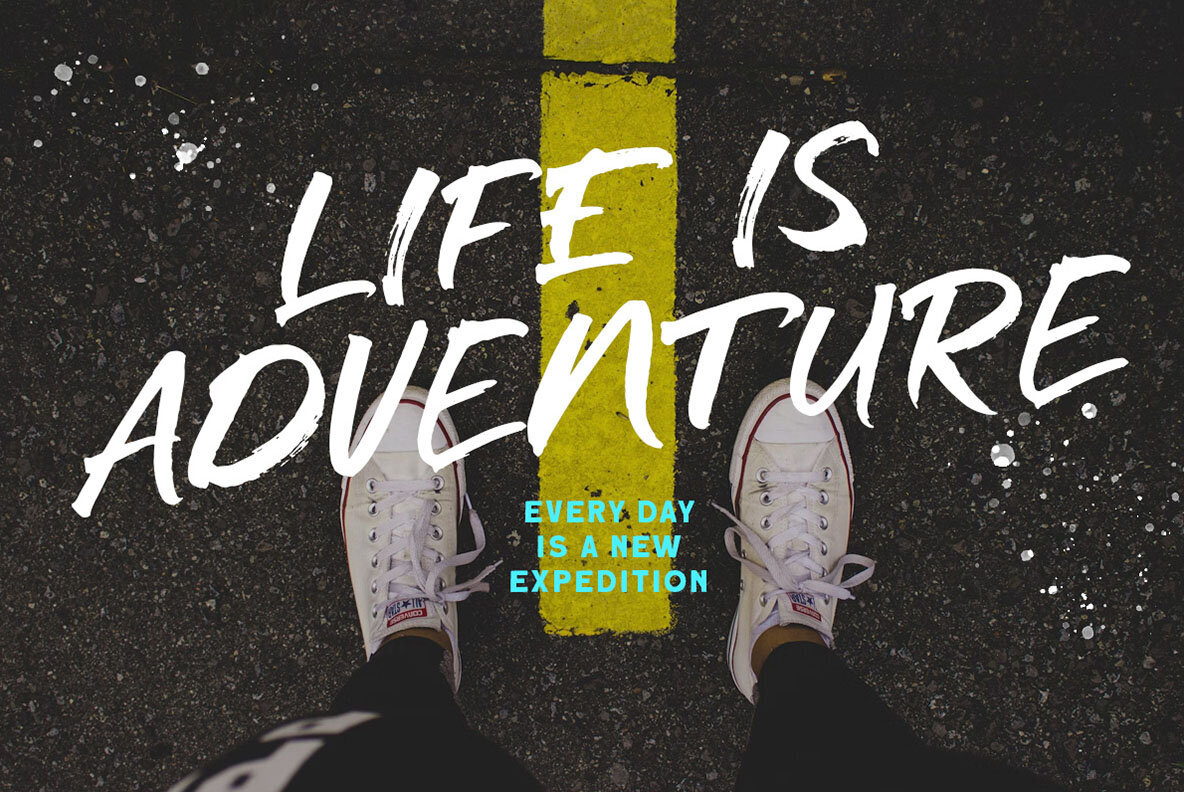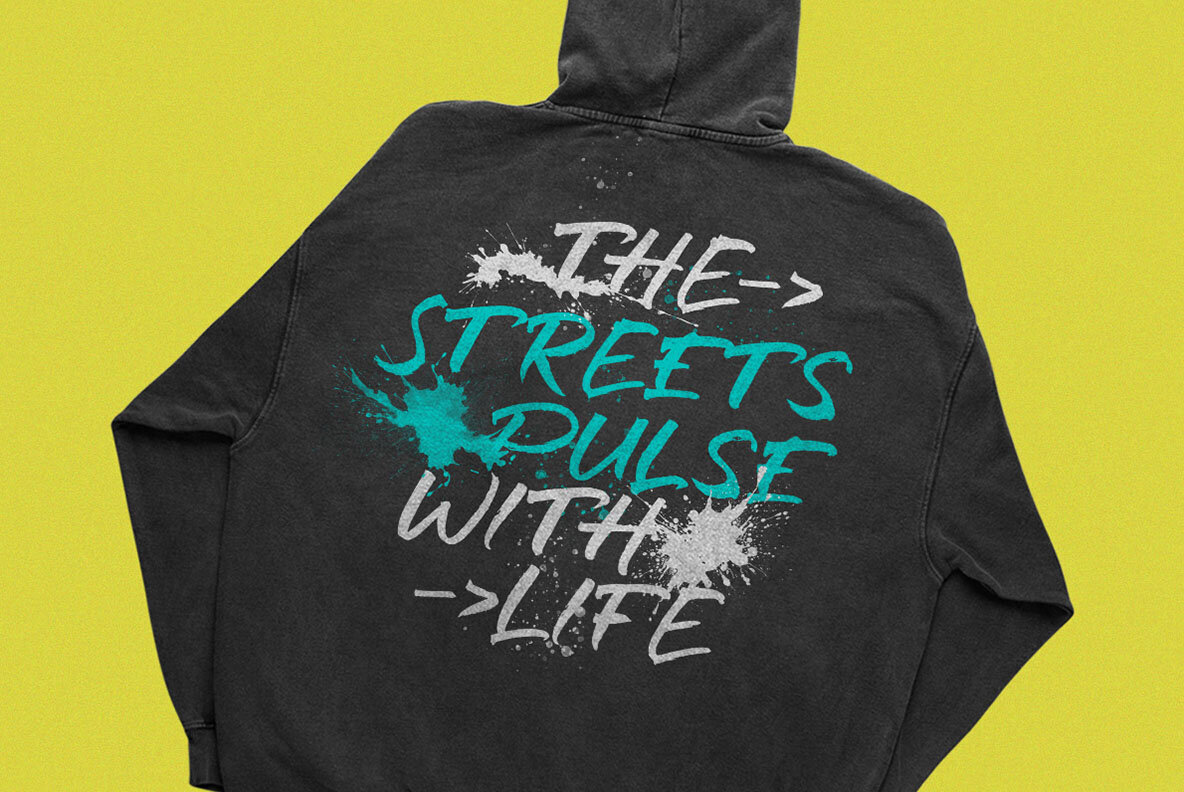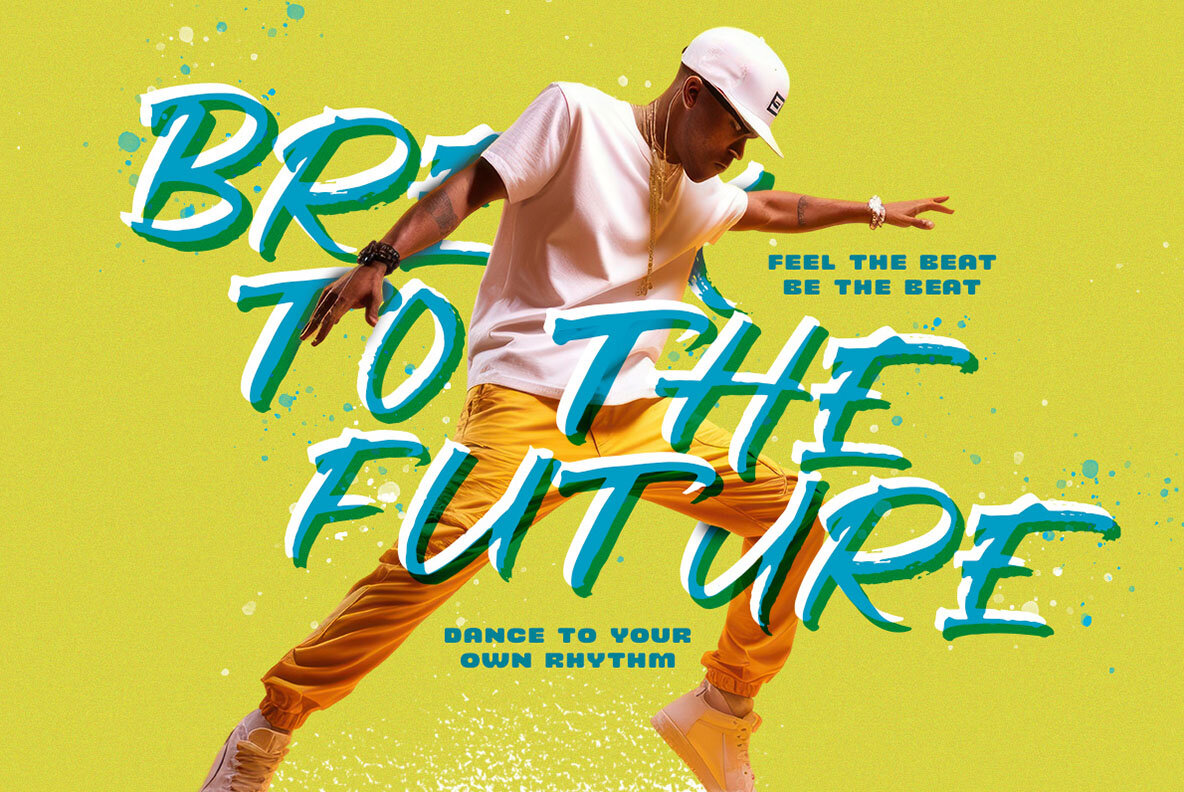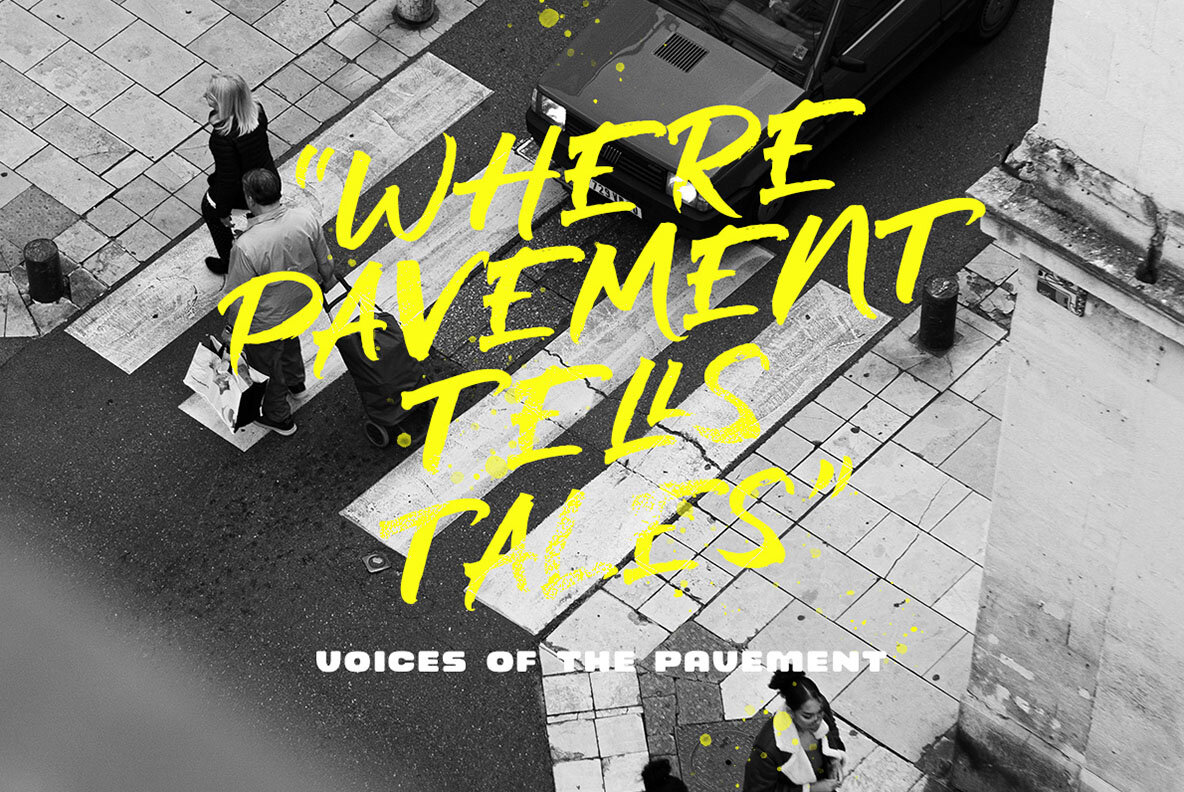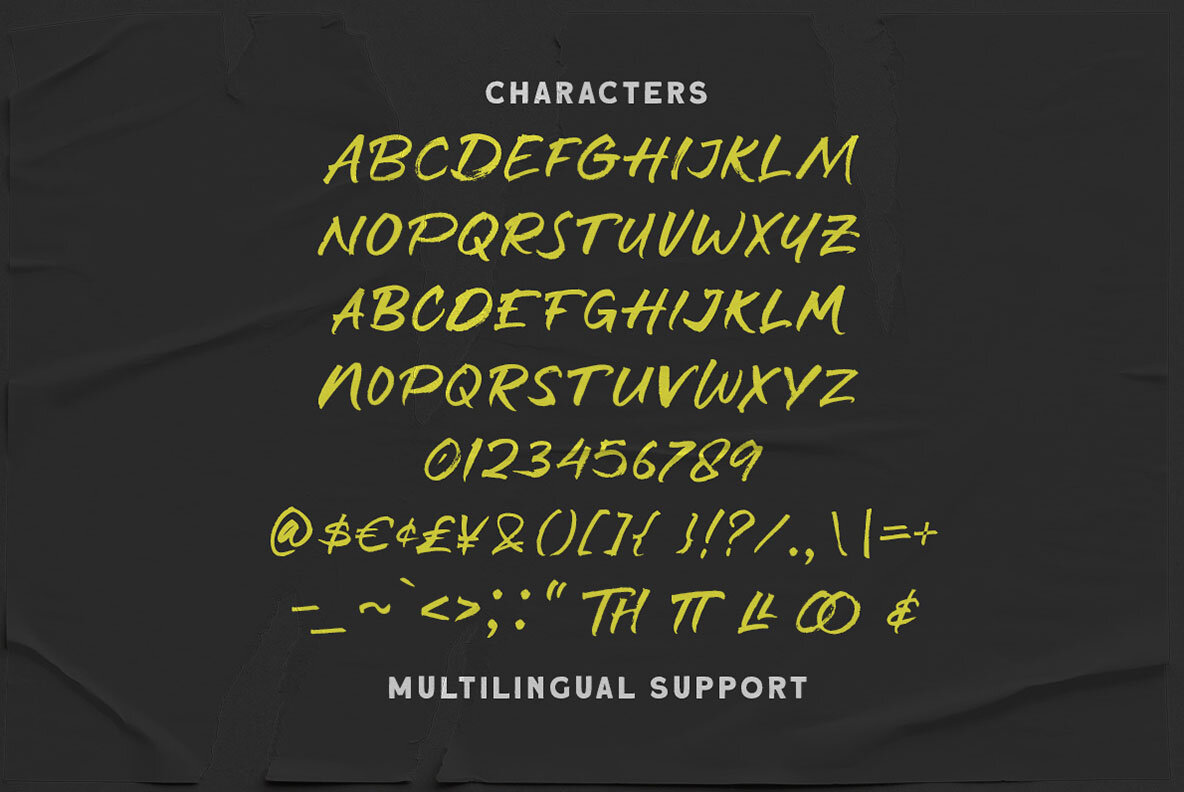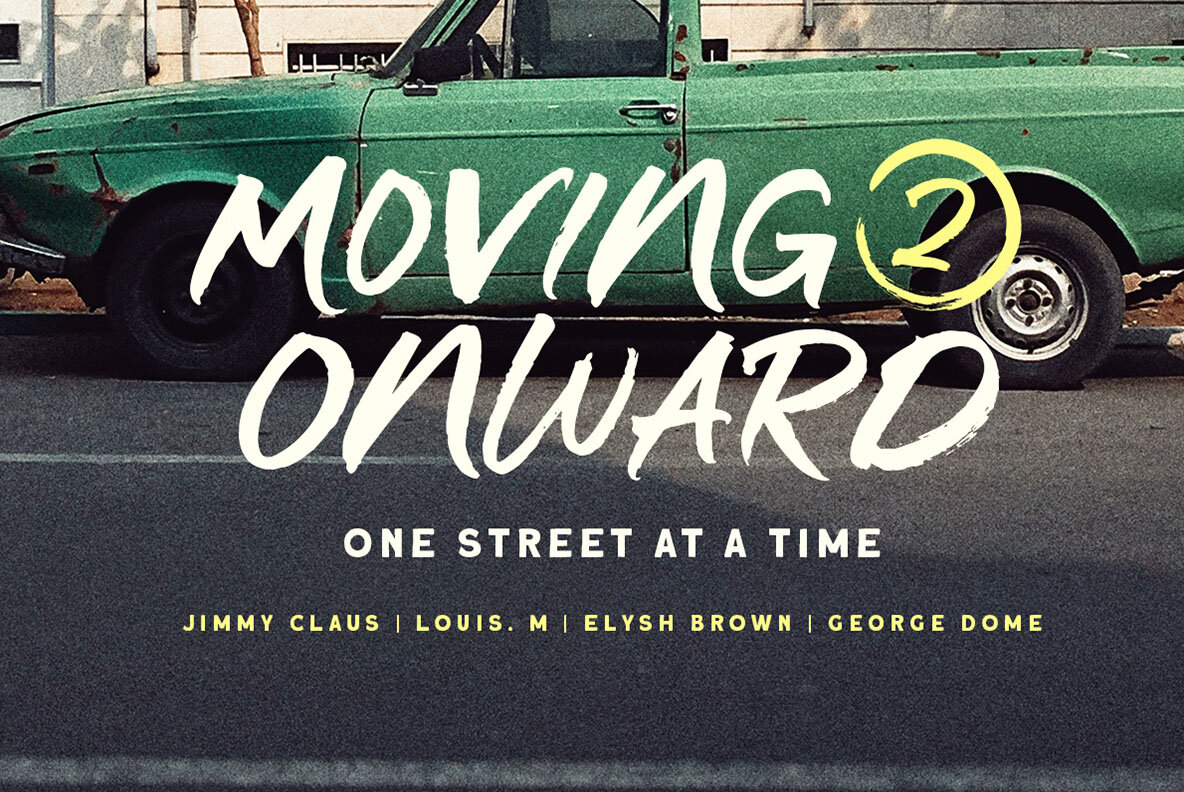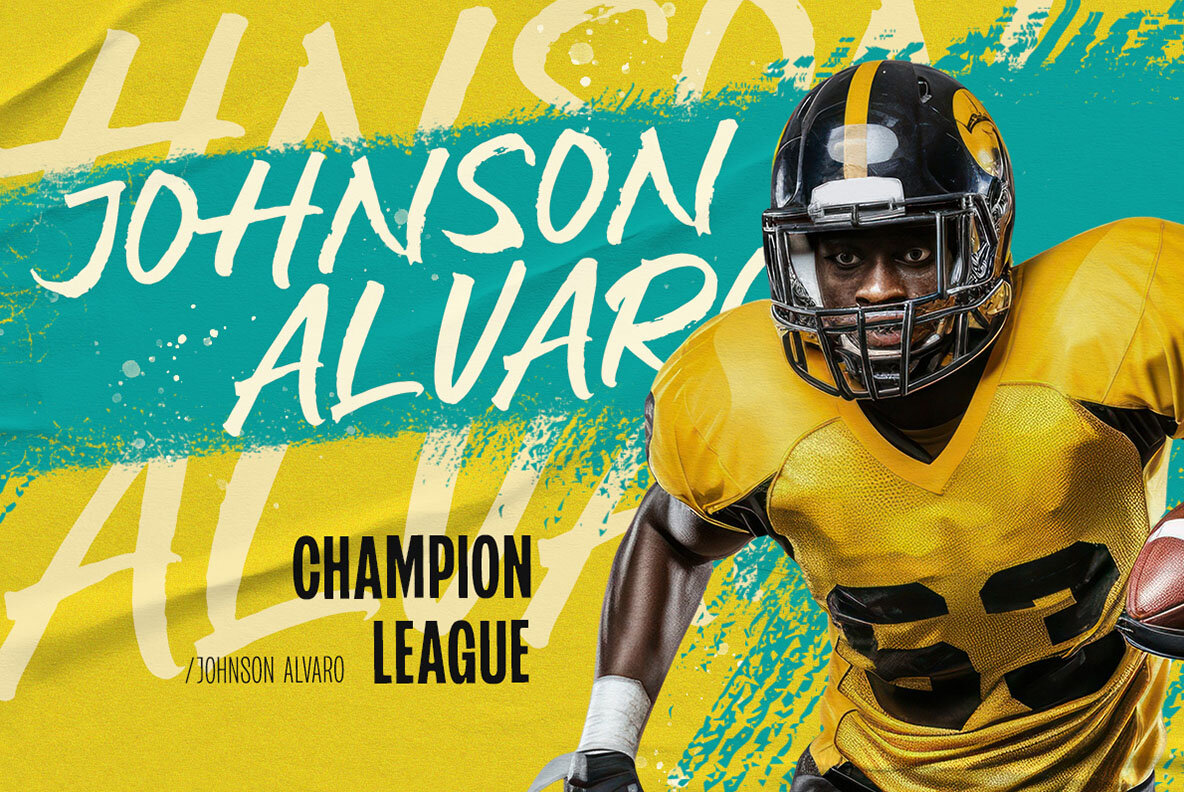
Mindful Braze Font
Mindful Blaze Regular
Mindful Braze is a freestyle brush font that brings an organic, hand-drawn quality to your designs. Its authentic strokes make it an ideal choice for projects that aim to make a bold artistic statement. This font is especially suited for application in logos and various formal forms, such as invitations, labels, magazines, books, greeting or wedding cards, packaging, fashion, makeup, stationery, novels, and advertising purposes. We recommend using a program that supports OpenType features and Glyphs panels, such as many Adobe applications and Corel Draw, to fully access all Glyph variations.Mindful Braze: Freestyle Brush Font with Hand-Drawn Appeal